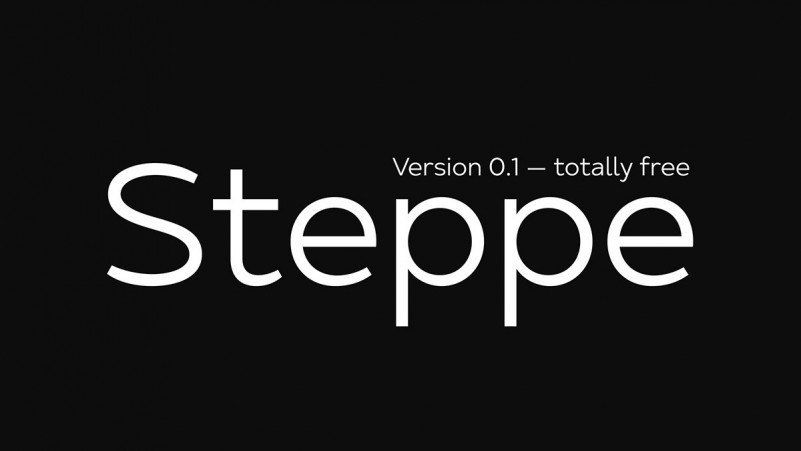
Steppe Font
Steppe Font is a warm and reliable sans serif, useful in any situation. Made from font designer named Igor Stepanchenko. Beautiful & practical, Quilty is designed for excellence in text-heavy settings while doubling as a capable and strong display typeface.
Steppe — soft and geometric modern sans-serif. Version 0.1. Include Latin and Cyrillic scripts. The font totally free for personal and commercial use. Please download and enjoy.